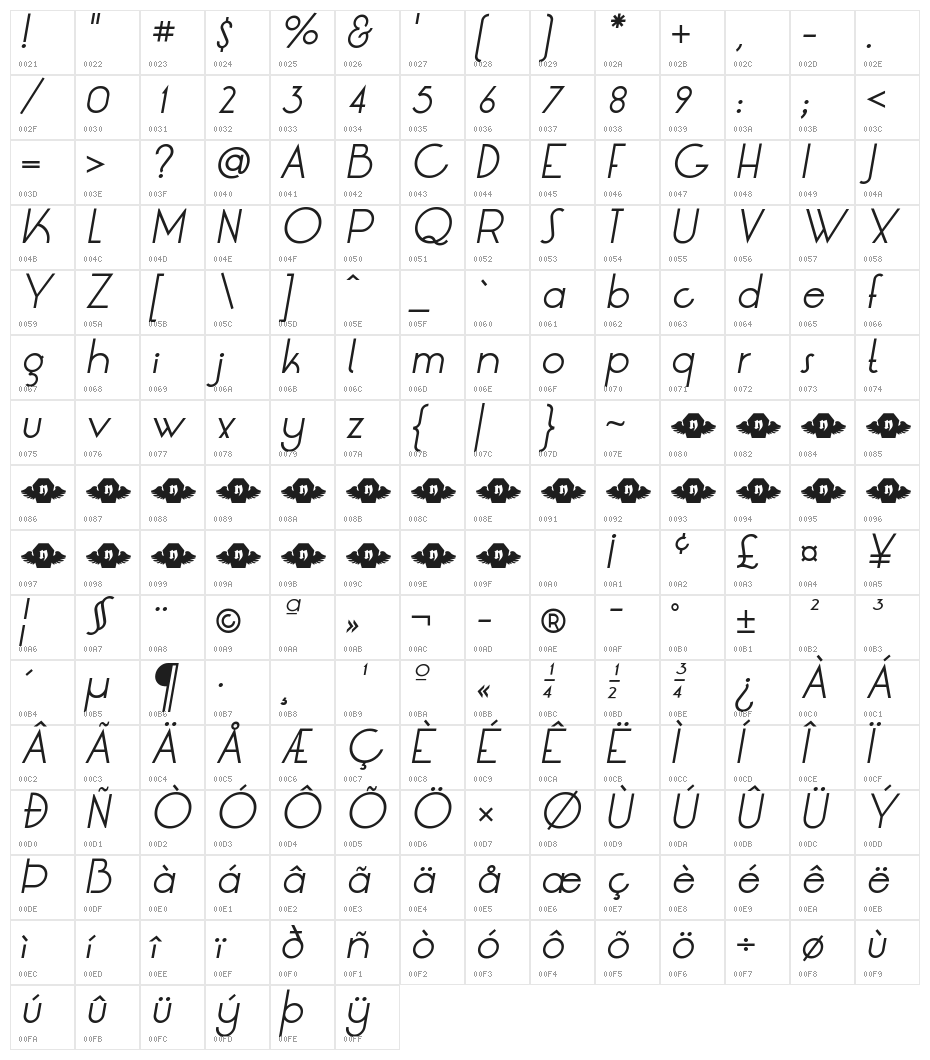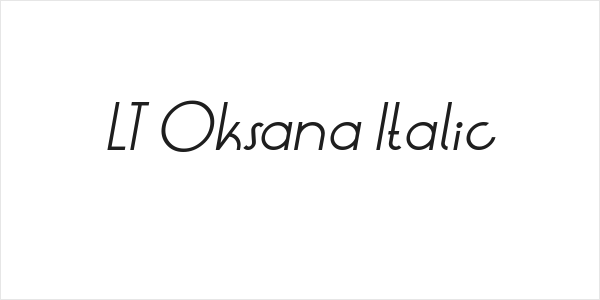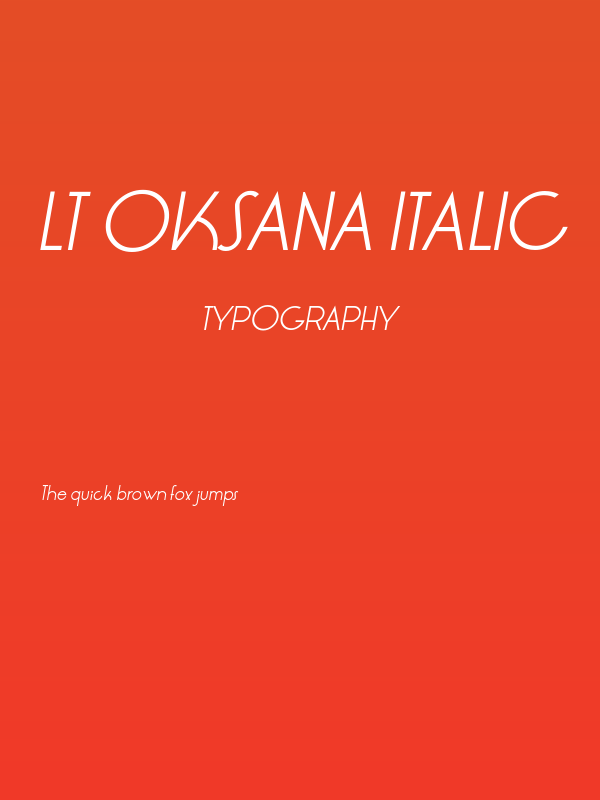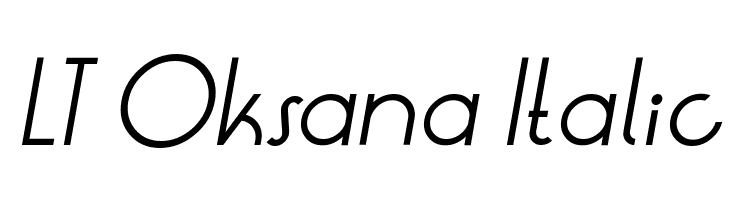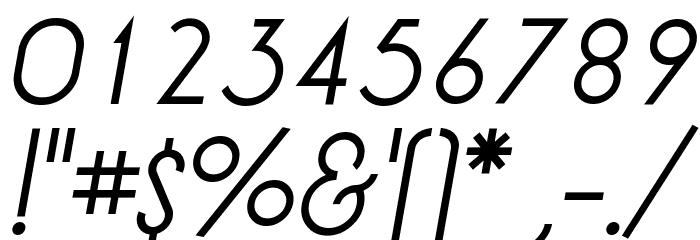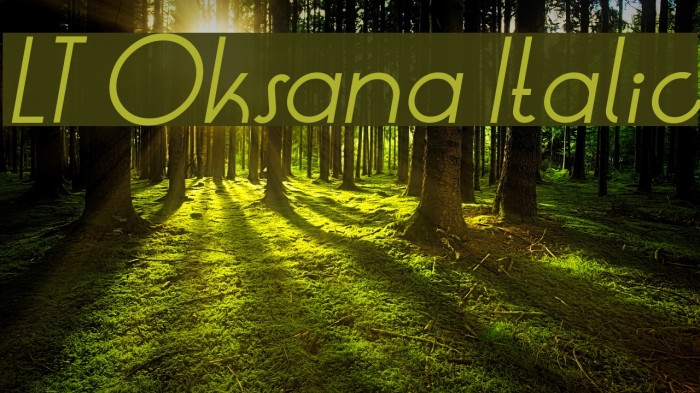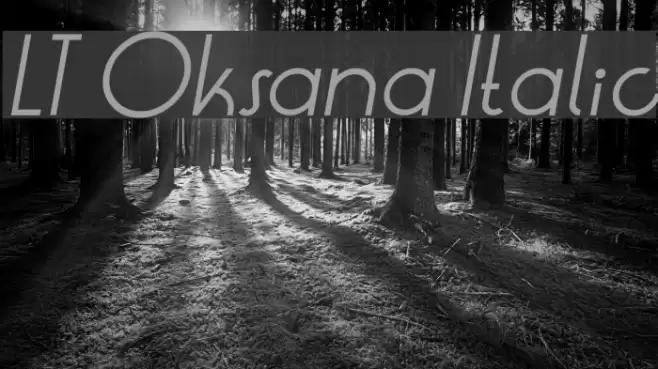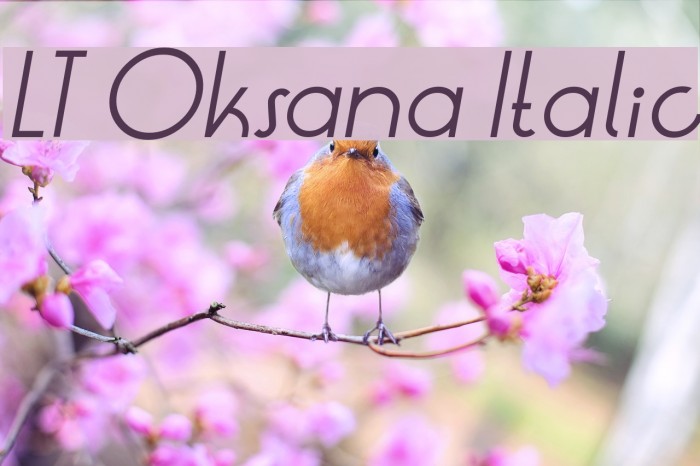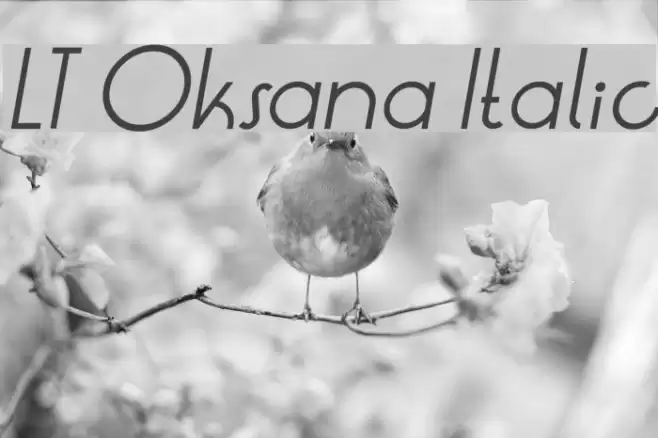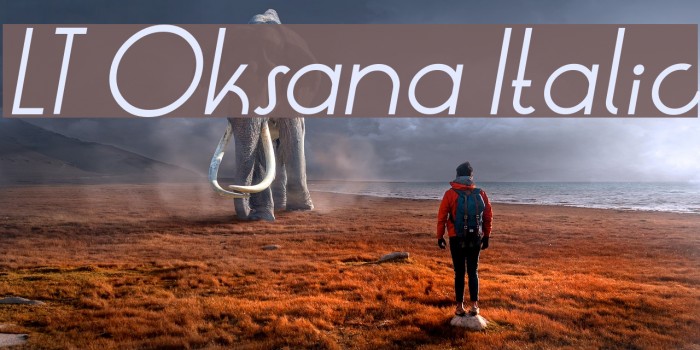
LT Oksana Italic Font
LT Oksana Italic Description
This font features a sleek and modern italic style with clean lines and a slight slant, giving it a dynamic and elegant appearance. The uppercase letters are tall and narrow, while the lowercase letters maintain a consistent flow with rounded edges. The numerals are distinct and easy to read, complementing the overall aesthetic. Special characters are well-integrated, maintaining the font's cohesive look. The design is versatile, making it suitable for a variety of applications.